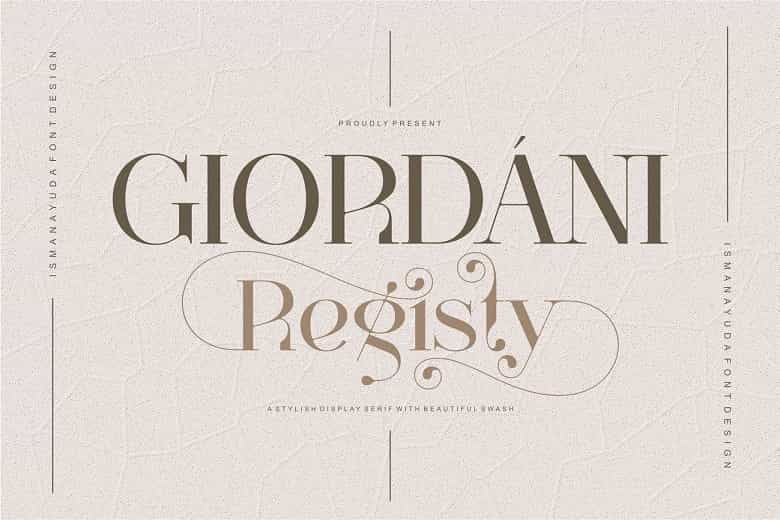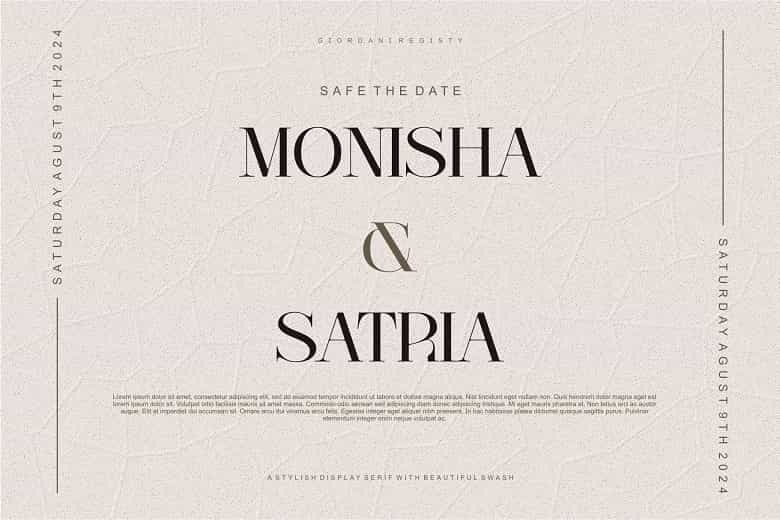
Giordani Registy is a serif display font that comes with a touch of the classic, feminine, elegance and is accompanied by a beautiful Alternate style. The Giordani Registy font is suitable for any project such as logos & branding, invitations, stationery, wedding designs, social media, ads, product packaging, product designs, labels, photograph, watermarks, events, or anything in between.